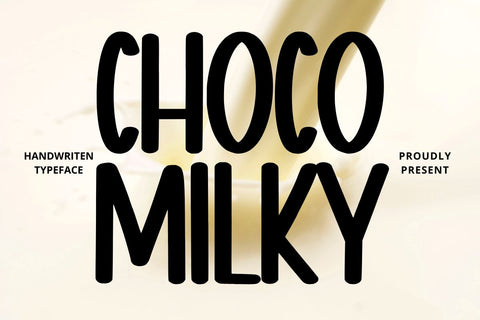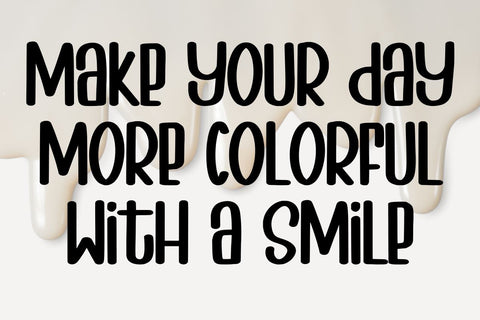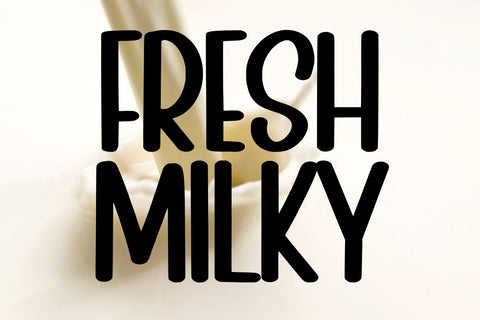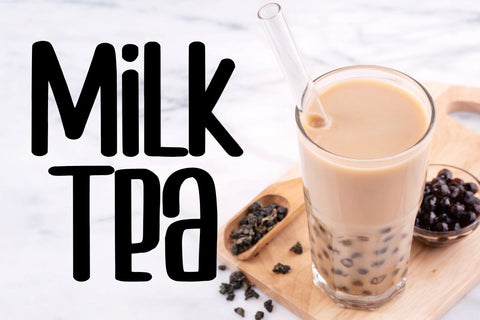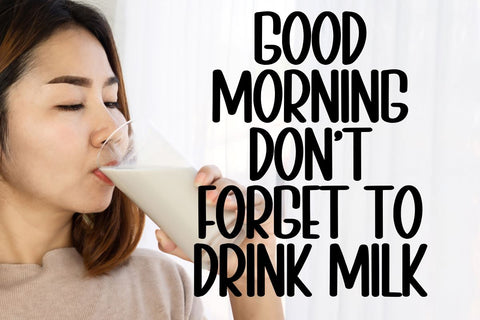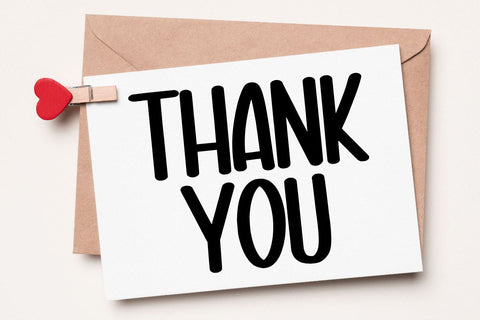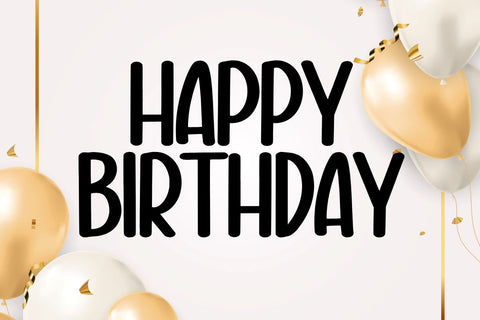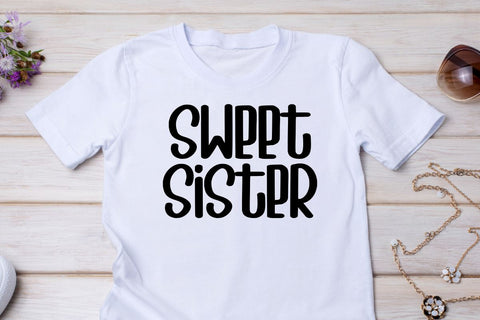
Choco Milky - Handwritten Typeface
Hi, Introducing Choco Milky - Handwritten Typeface
A handwritten typeface font with a cute and fun style, this font is cool for mugs, t-shirts, tote bags, greeting cards, quotes, etc.